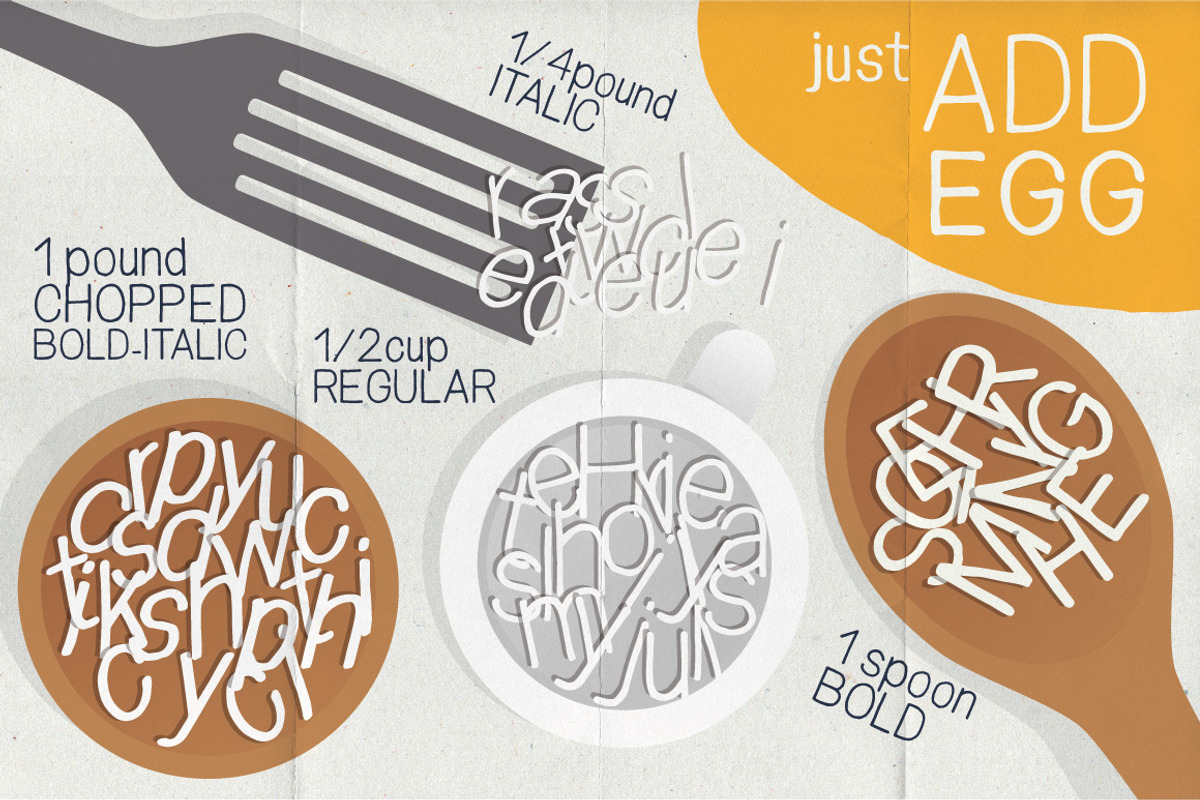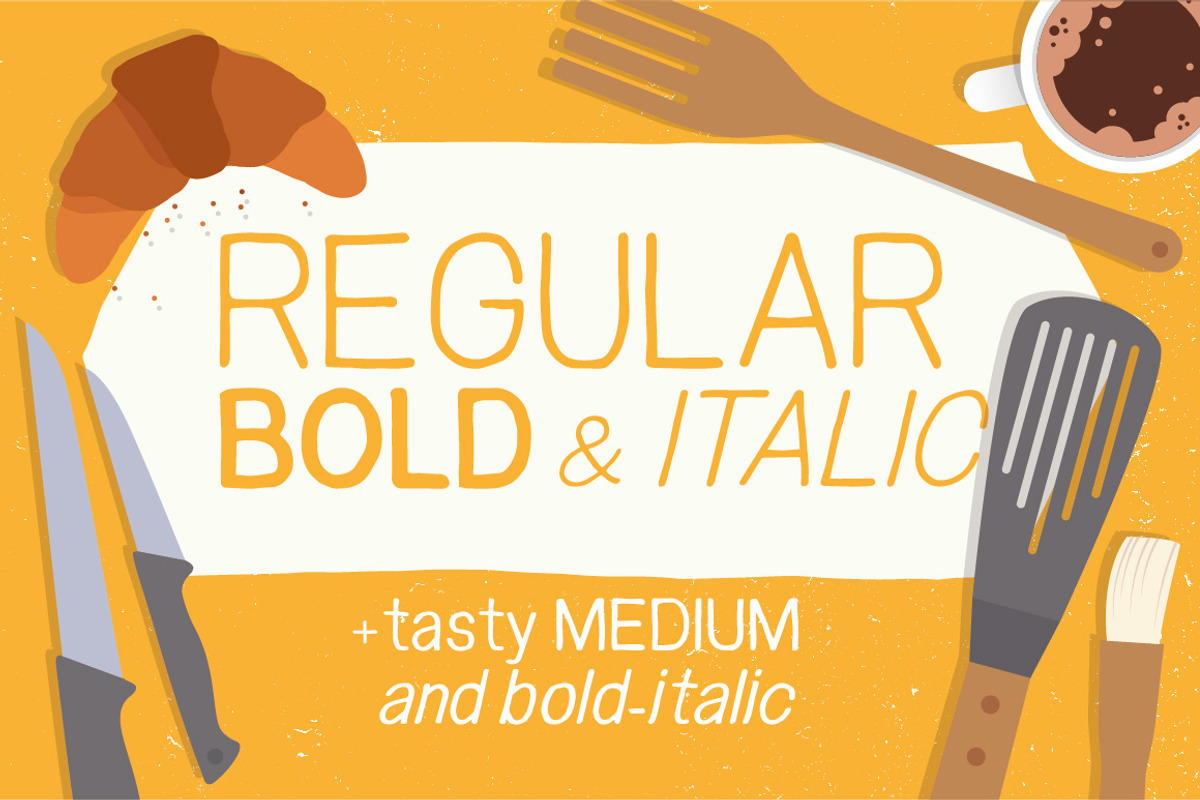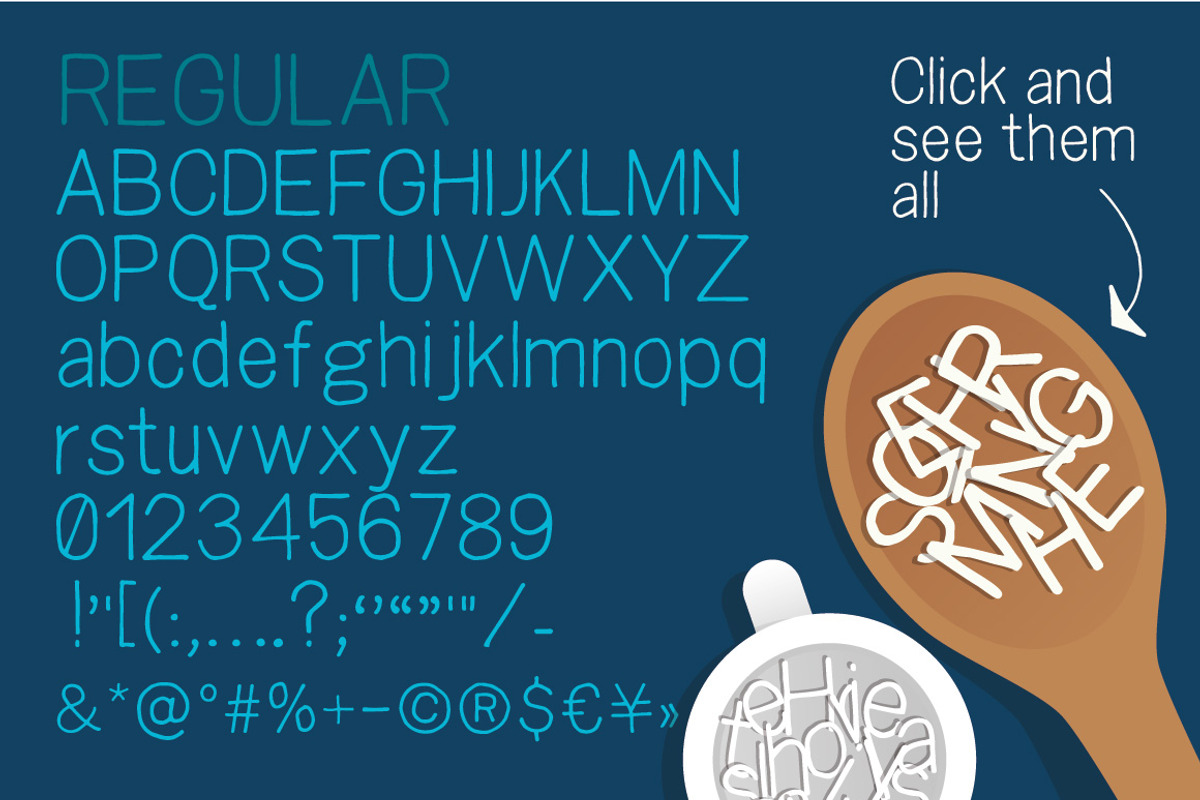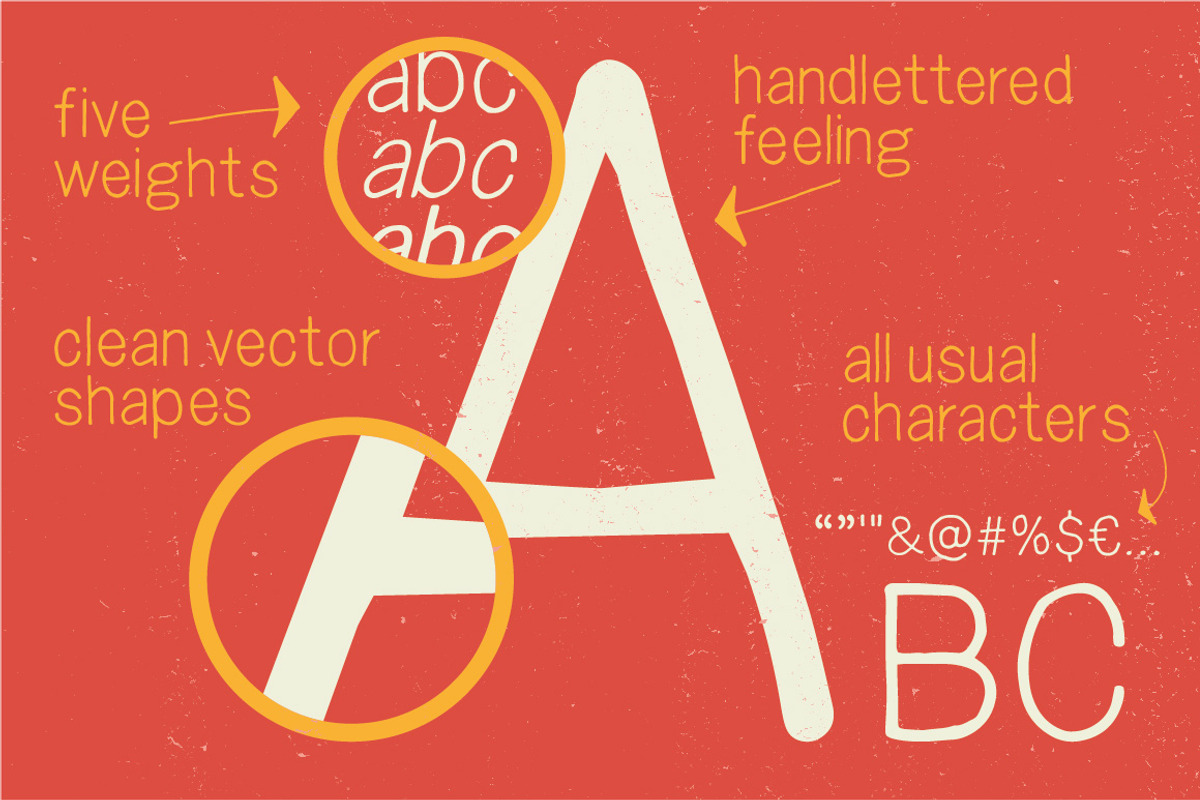
Snacker - sans serif font
Snacker - sans serif font by Vitek Graphic is a font selected for branding, posters, packaging, typography.
- Snacker include upper and lowercase letters, all usual english characters and comes in five weights.
- include:: Snacker regular Snacker medium Snacker bold Snacker italic Snacker medium-italic Include all basic english characters but no alter
Why Snacker - sans serif font is worth a look
Snacker - sans serif font by Vitek Graphic fits naturally into Branding, posters, packaging, typography.